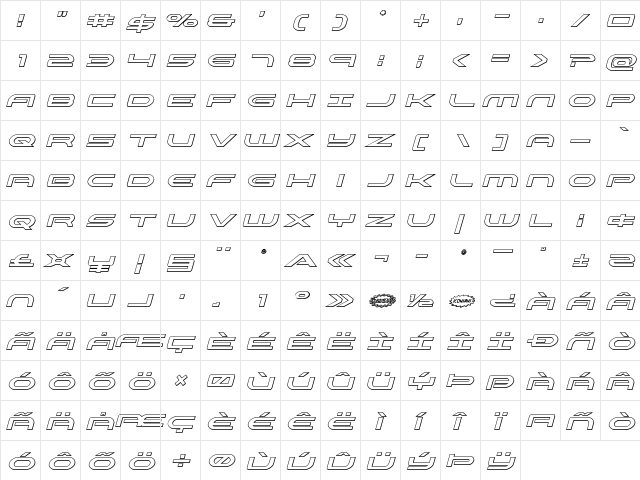
Antietam Outline Italic Outline Italic
Design Context for Antietam Outline Italic Typeface
Antietam Outline Italic is built around its visual character rather than neutral utility — its distinctive forms are designed to make an impression at display sizes. The dynamic lean of this cut emphasises speed and emphasis in any layout.
Font Pairing: Pair with a clean neutral sans-serif for body copy to let Antietam Outline Italic's character lead without overwhelming the composition.
Pro Tip: Use Antietam Outline Italic exclusively at display sizes — it was designed to be seen, not read at length. Let a neutral companion handle body copy.